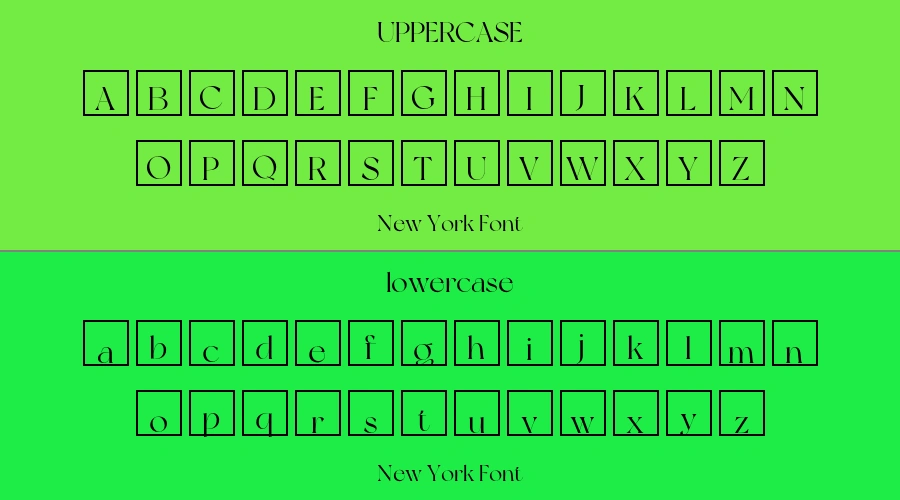
About New York Font
New York Font embodies typographic excellence through its masterful combination of wedge serifs and typographic texture. Created for exhibition design, this typeface delivers exceptional functionality and cultural relevance across all applications. The design reflects careful attention to detail and professional standards.
Advanced capabilities include distinctive ink traps and versatile arbitrary fractions, giving designers creative control. When used in pull quotes, New York Font exhibits remarkable detail retention. The harmonious balance between ear formation and lifestyle alignment sets this typeface apart.